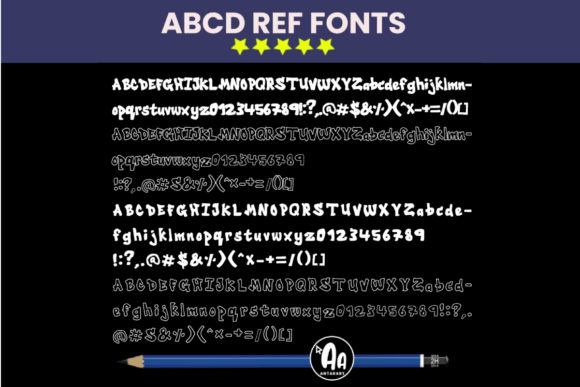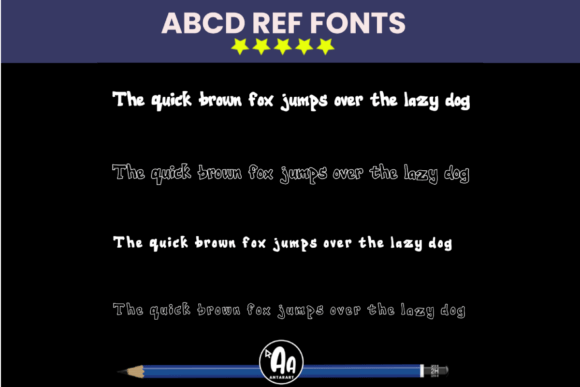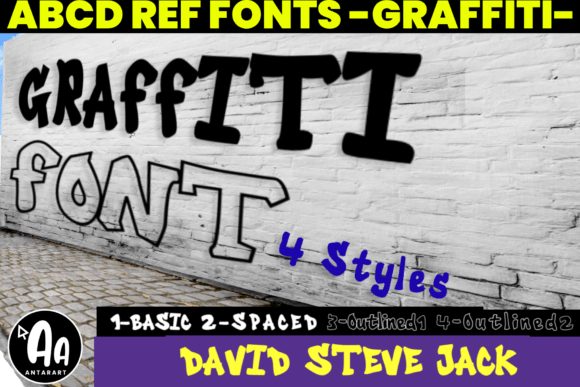
Introducing Abcd Ref Graffiti Font: Unleashing Creativity in Kids with Street Art Graffiti Letters
Are you looking for a fun and engaging way to teach kids about street art and graffiti? Look no further than the Abcd Ref Graffiti Font, a bold and playful A-Z font set designed specifically for young learners. This kid-friendly graffiti-style font pack is perfect for bringing the creative energy of urban street art into the classroom, while supporting fine motor skills, letter recognition, and visual design thinking.
Four Unique Styles to Suit Every Need
The Abcd Ref Graffiti Font pack features four distinct styles to cater to different needs and preferences: Basic, Spaced, Outlined, and Outlined Spaced. Each style is carefully crafted to provide a unique and engaging learning experience for kids. Whether you’re looking for a solid and bold font or a more delicate outlined version, this font pack has got you covered.
• Basic: A solid and bold font perfect for making a statement in the classroom.
• Spaced: A font with added spacing between letters, ideal for kids who are just learning to read and write.
• Outlined: A delicate outlined font that’s perfect for coloring and decorating activities.
• Outlined Spaced: A combination of the outlined and spaced fonts, offering the best of both worlds.
A Complete Toolkit for Artistic Learning
The Abcd Ref Graffiti Font pack is more than just a font – it’s a complete toolkit for artistic learning and classroom engagement. With uppercase and lowercase letters, numbers, and special characters, you’ll have everything you need to create engaging and interactive learning materials. This font pack is ideal for:
• Name writing activities: Help kids practice writing their names in a fun and creative way.
• Bulletin board titles: Create eye-catching bulletin board titles that will grab kids’ attention.
• Back-to-school crafts: Add a touch of street art flair to your back-to-school crafts and activities.
• DIY name tags: Create personalized name tags that kids will love.
• Street art-themed projects: Encourage kids to explore their creativity with street art-themed projects.
Benefits for Kids
The Abcd Ref Graffiti Font pack offers a range of benefits for kids, including:
• Fine motor skills: Help kids develop their fine motor skills through coloring, tracing, and cutting activities.
• Letter recognition: Support letter recognition and alphabet learning with this engaging font pack.
• Visual design thinking: Encourage kids to think creatively and develop their visual design skills.
A Safe and Expressive Way to Explore Graffiti
The Abcd Ref Graffiti Font pack provides a safe and expressive way for kids to explore the world of graffiti without the mess. With these fonts, kids can let their imagination run wild, creating unique and colorful artwork that’s all their own.
In conclusion, the Abcd Ref Graffiti Font pack is a must-have for anyone looking to bring street art and graffiti into the classroom or their creative projects. With its bold and playful font styles, complete toolkit for artistic learning, and range of benefits for kids, this font pack is sure to inspire creativity and imagination.